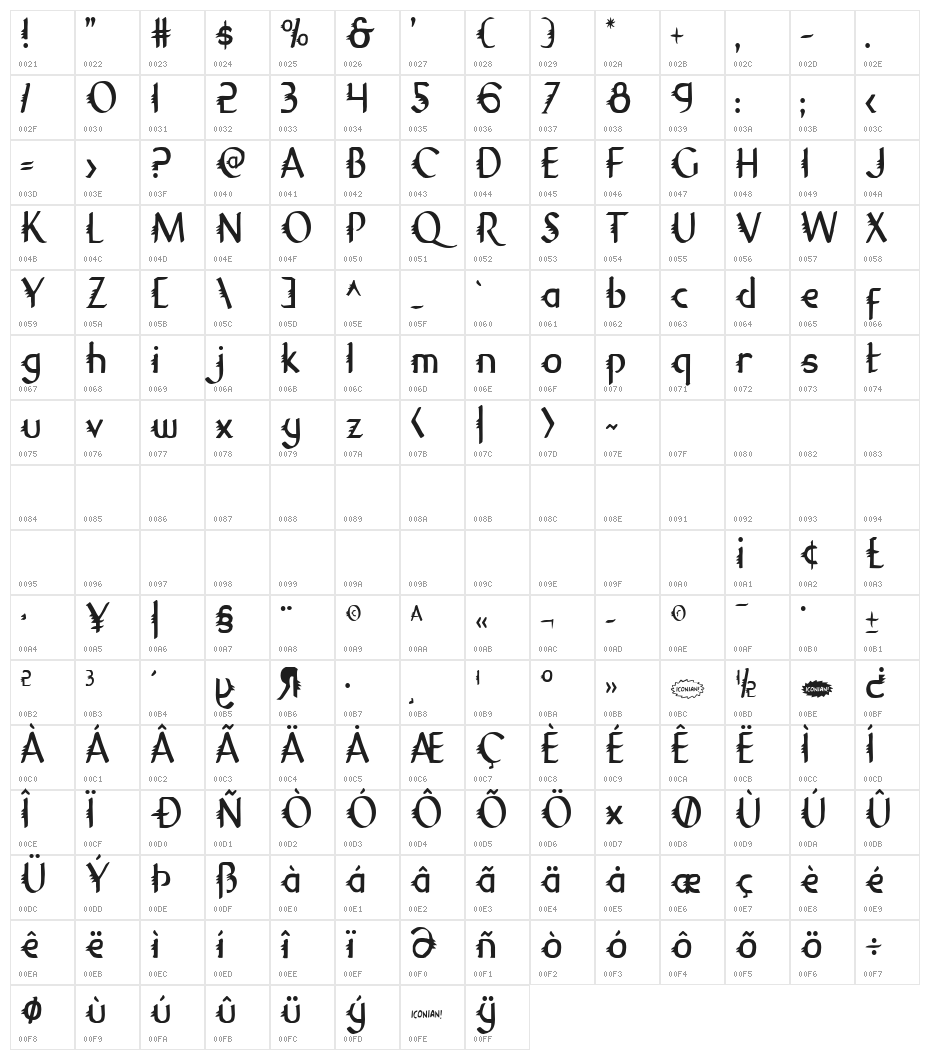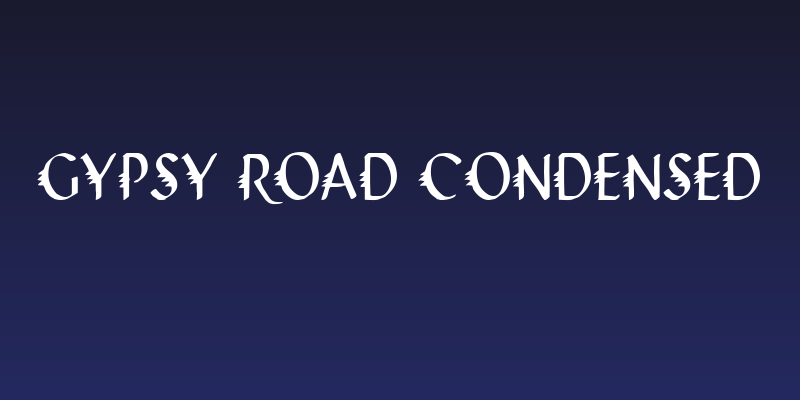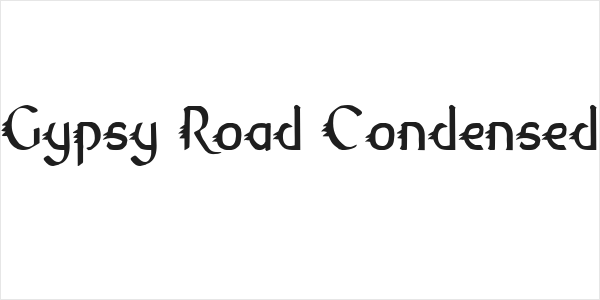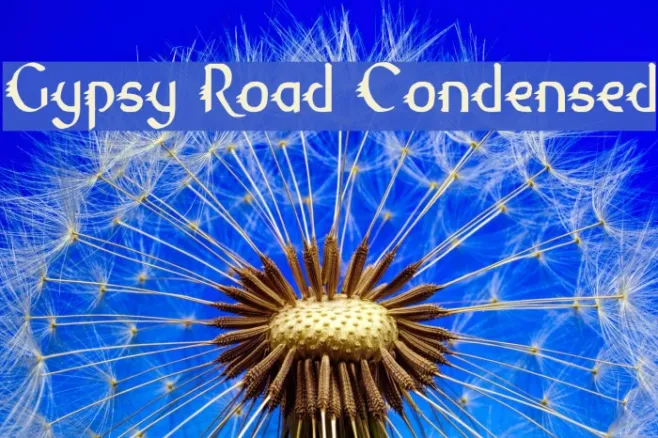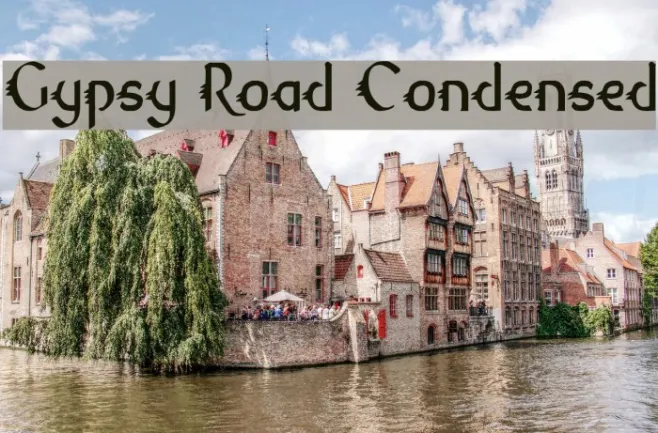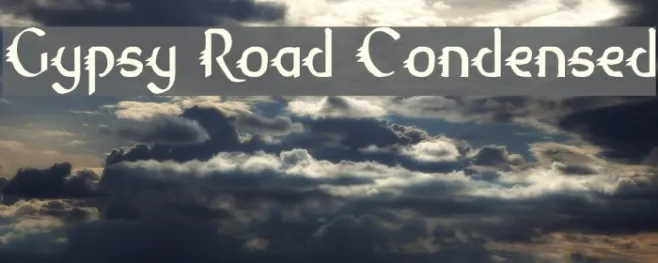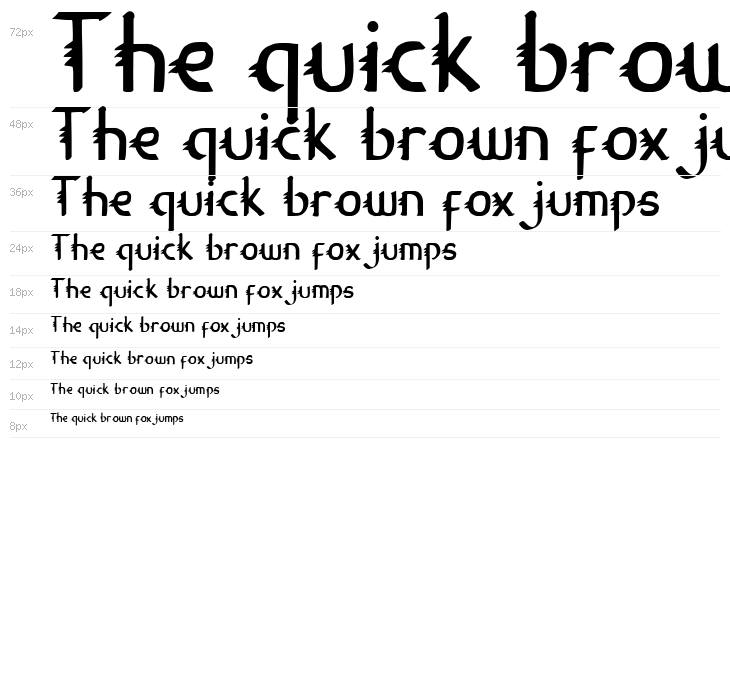
Gypsy Road Condensed Font
Gypsy Road Condensed Description
This font features a unique and edgy design with sharp, jagged edges that give it a distinct and rebellious character. The letters are condensed, enhancing the bold and impactful appearance. The uppercase and lowercase characters maintain a consistent style, with angular cuts and pointed serifs that create a sense of movement and energy. The numbers and special characters follow the same aesthetic, ensuring a cohesive look across all text elements. This font is ideal for projects that require a strong visual statement, such as posters, album covers, or branding for edgy or alternative brands.
| Proposed Projects | Ideal for posters, album covers, edgy branding, and alternative designs. |